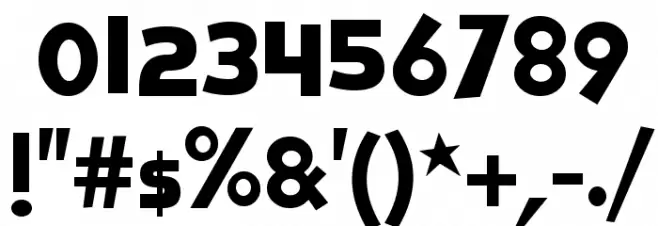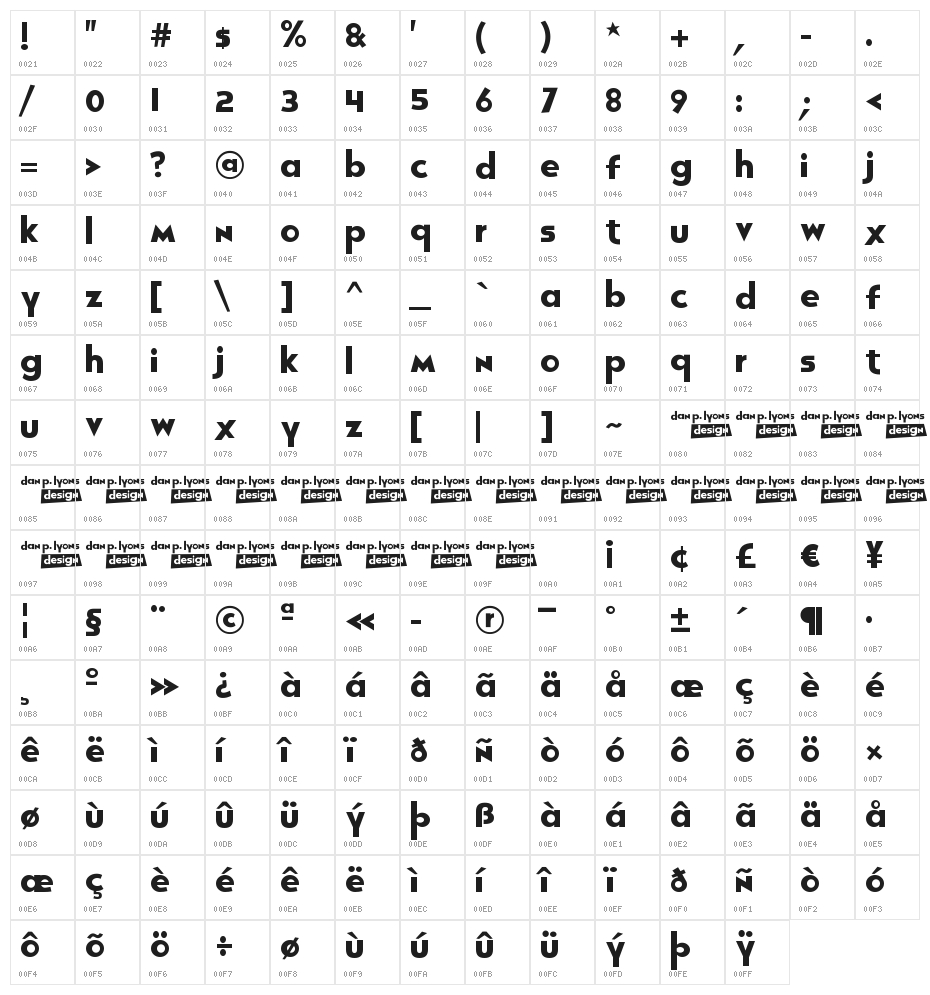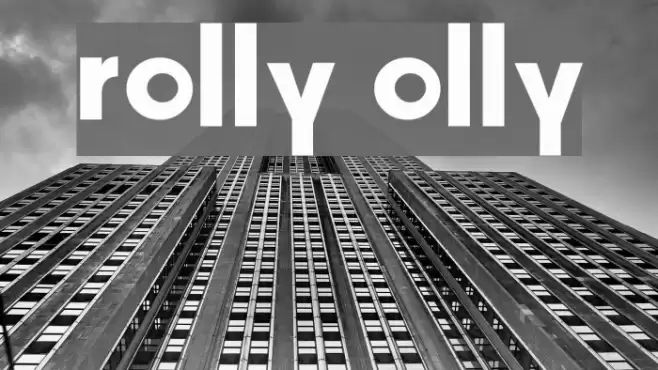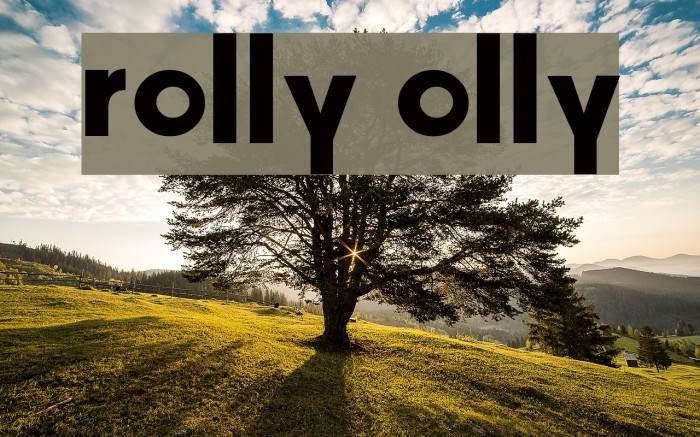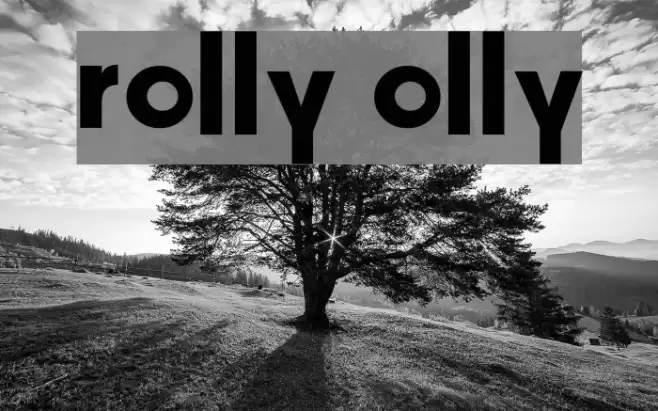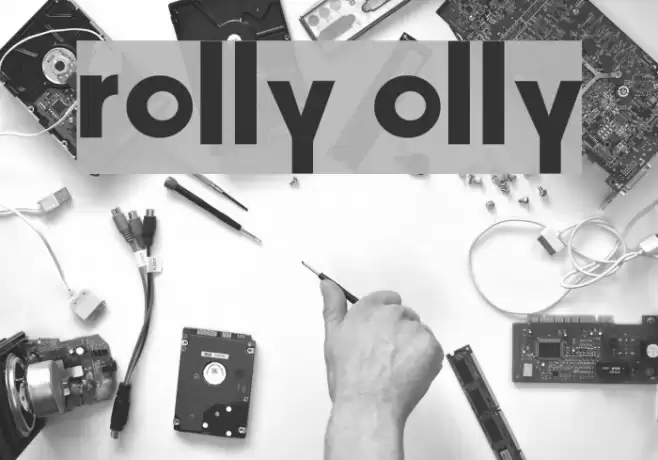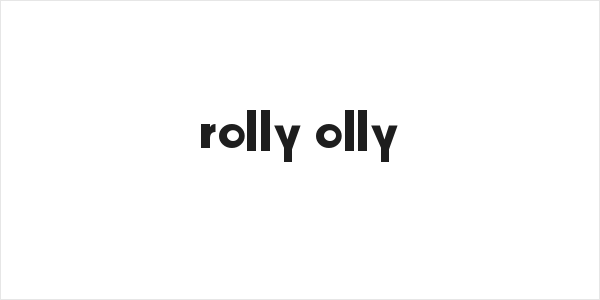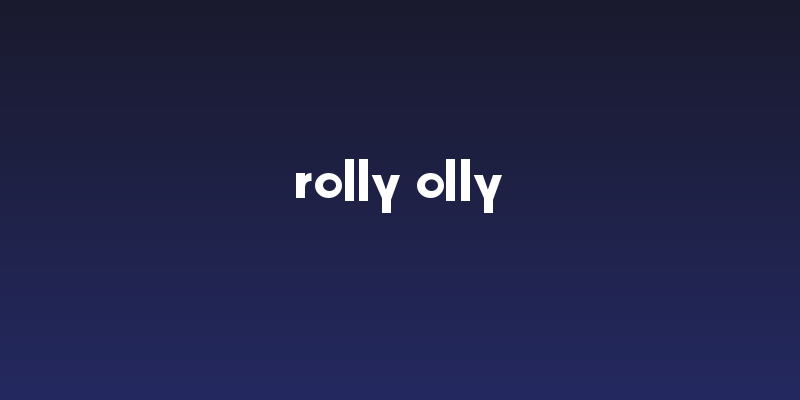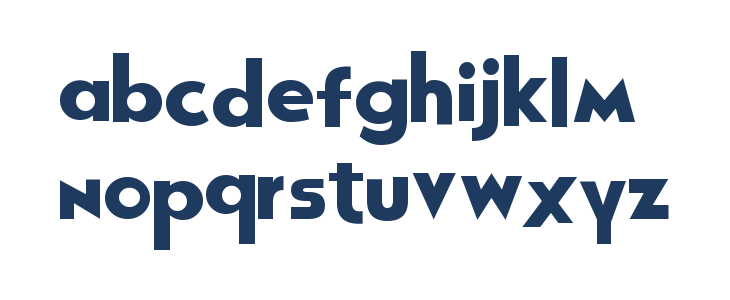
Rolly Olly Font
Rolly Olly Description
This font features a bold and geometric style with a strong emphasis on angular shapes and clean lines. The characters are uniformly thick, creating a cohesive and impactful appearance. The uppercase and lowercase letters maintain a consistent height, contributing to a balanced and structured look. The numbers are equally bold, ensuring readability and uniformity across different uses. Special characters are designed with the same geometric precision, making them stand out while remaining harmonious with the rest of the font. This font is ideal for projects that require a modern and assertive aesthetic.